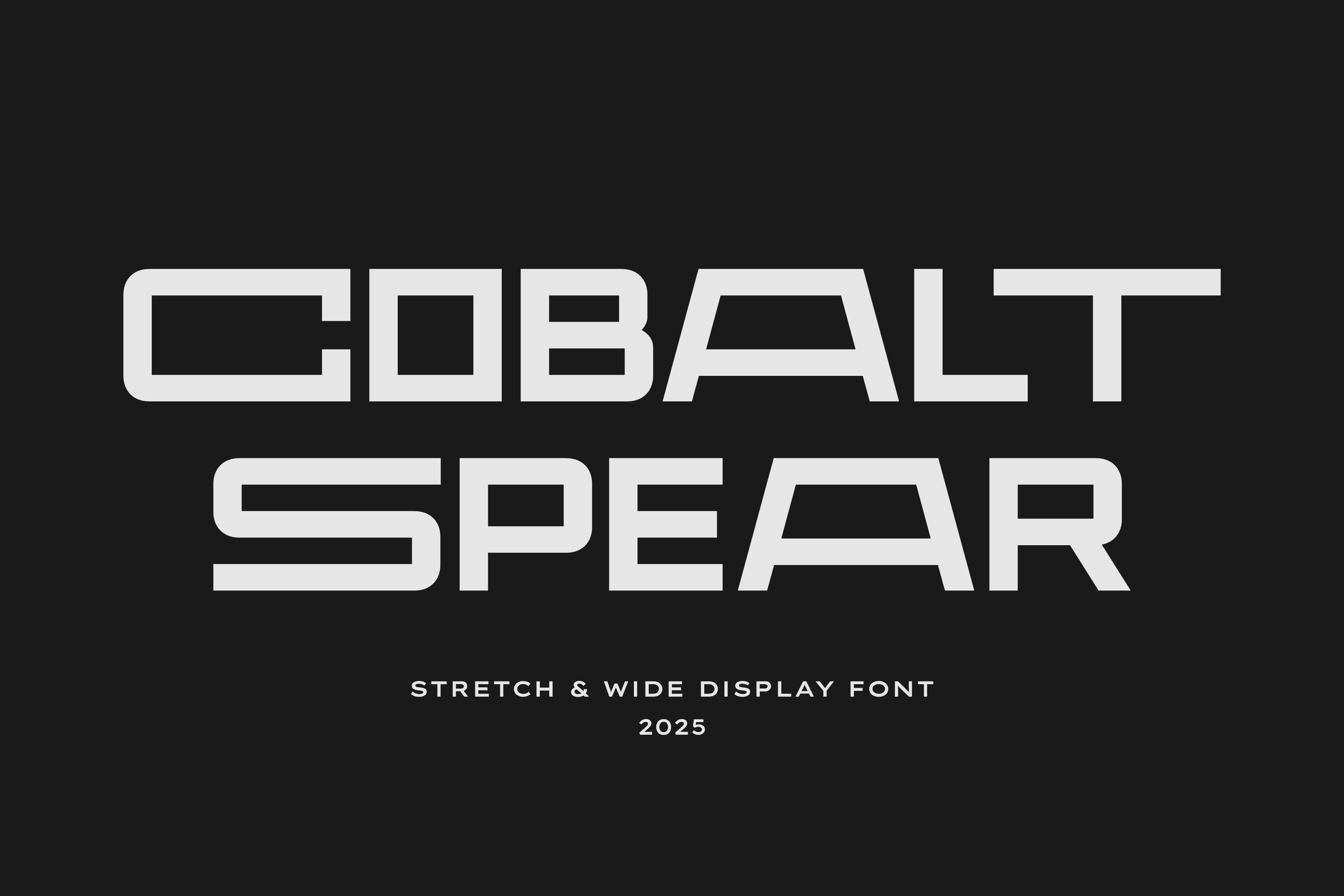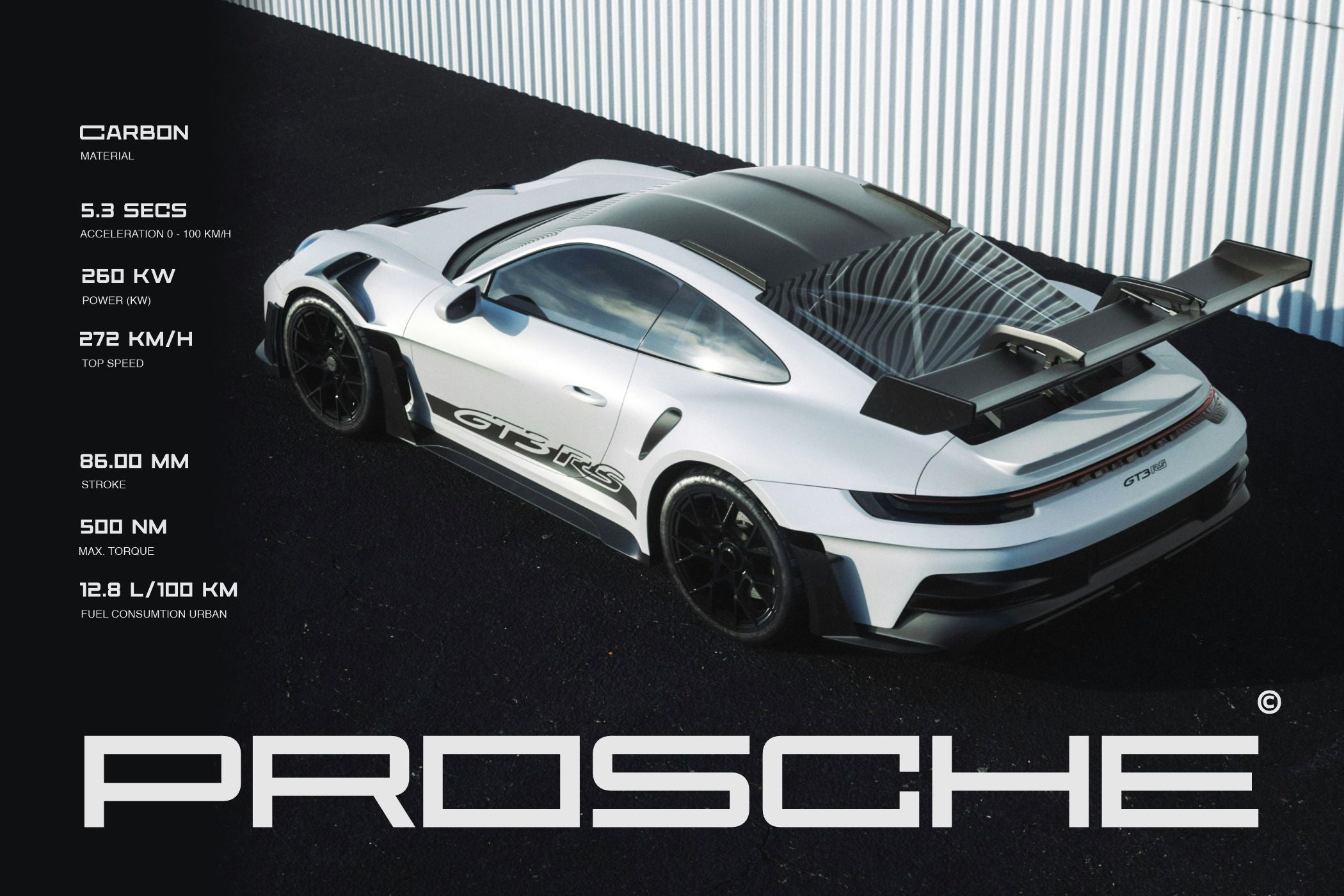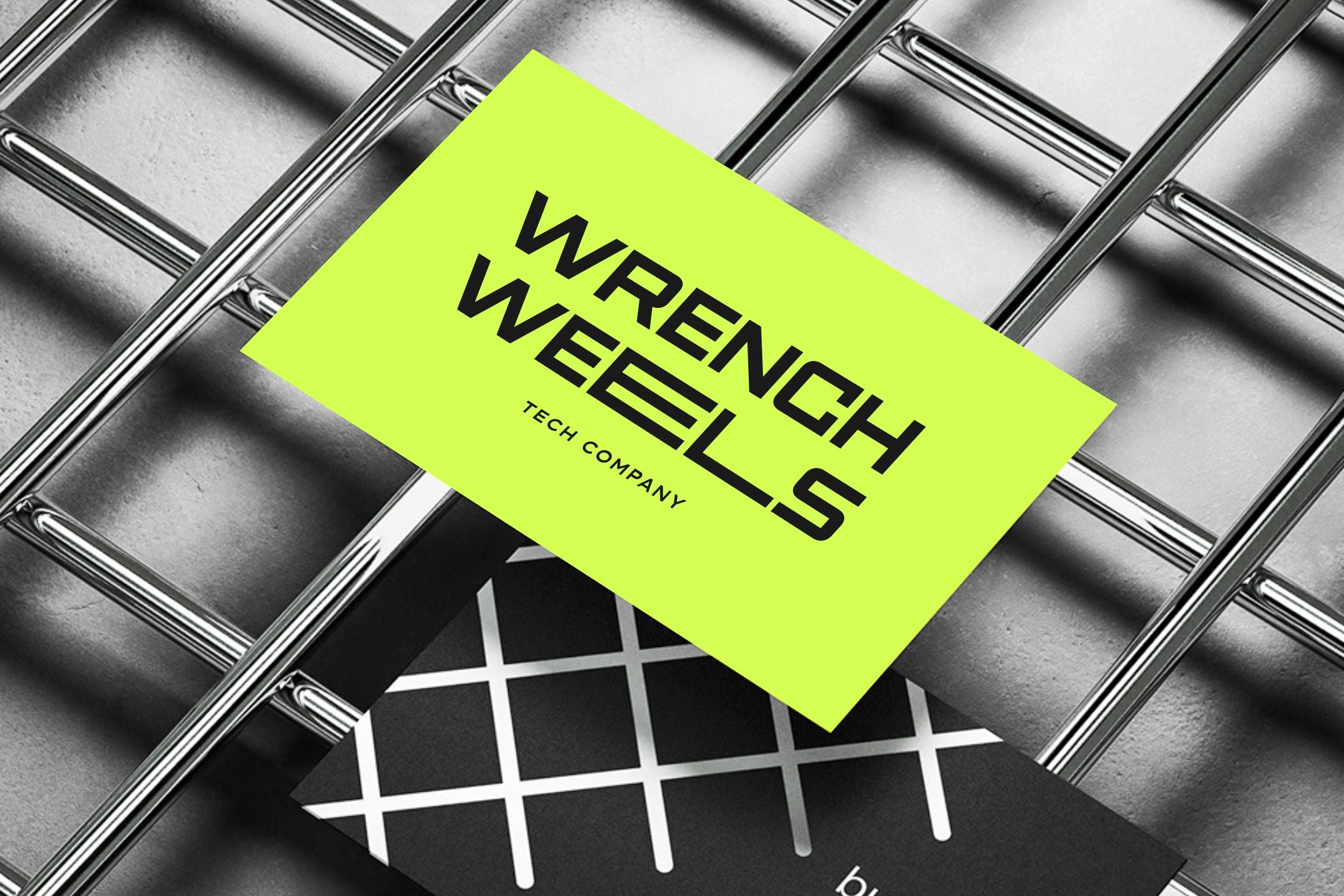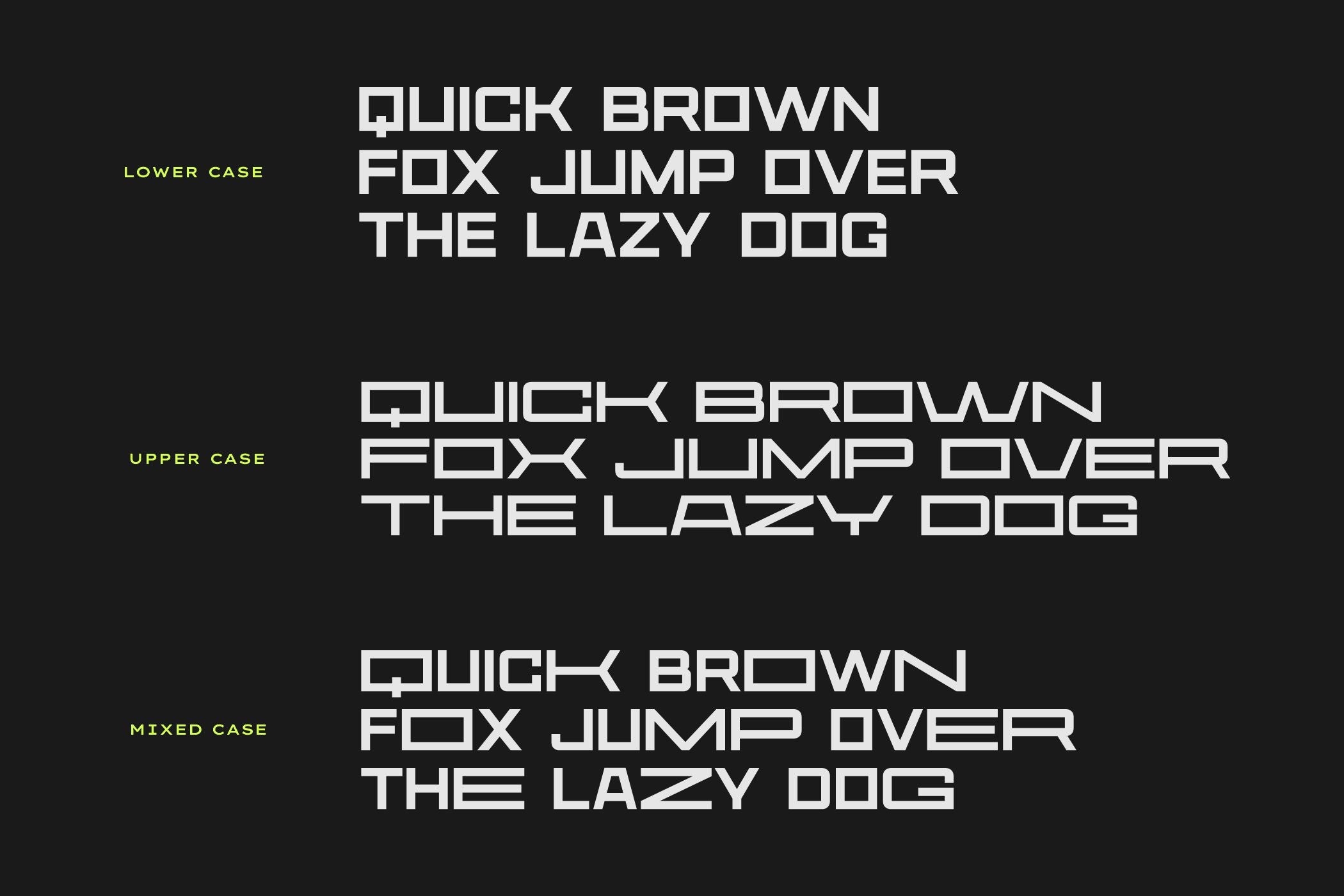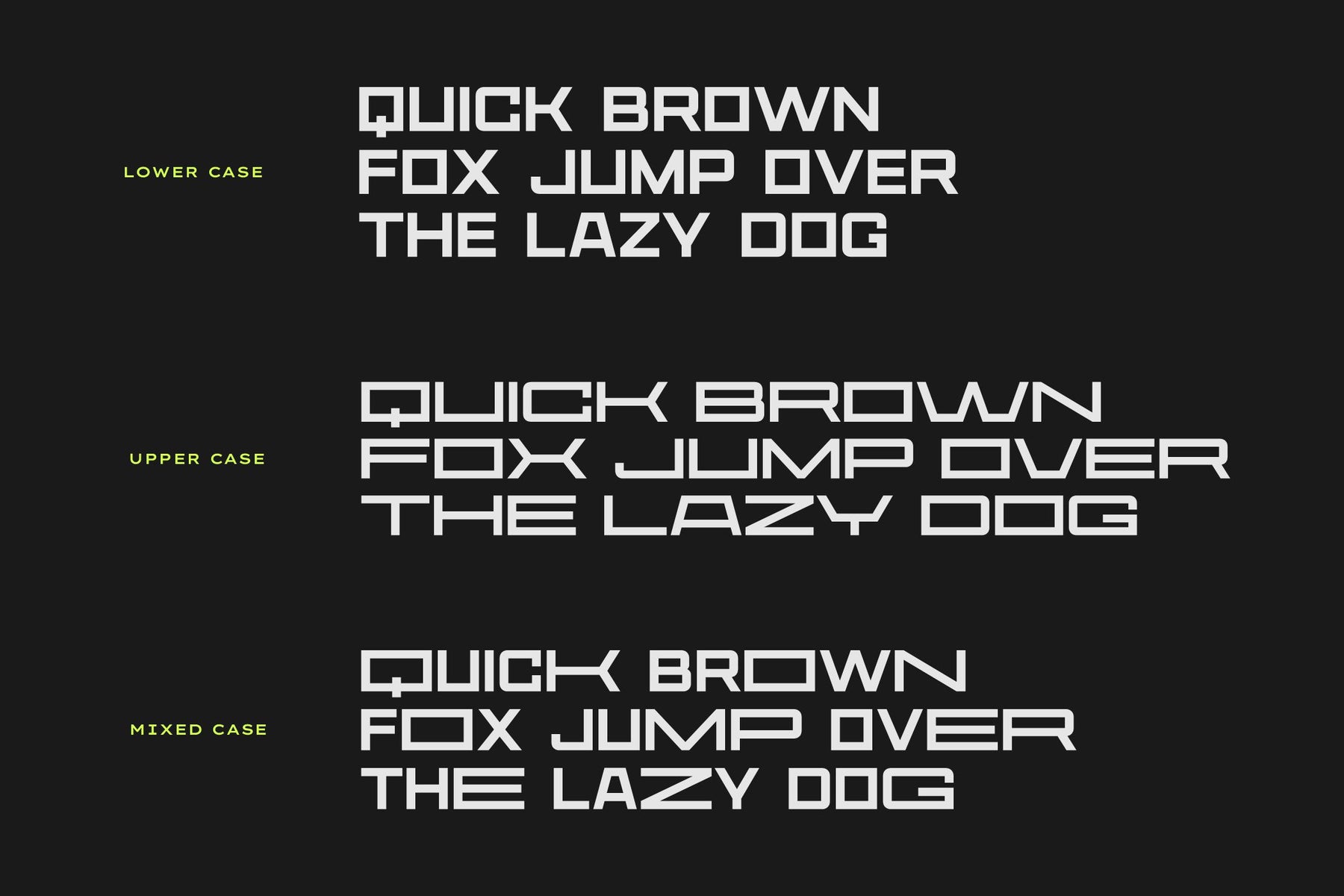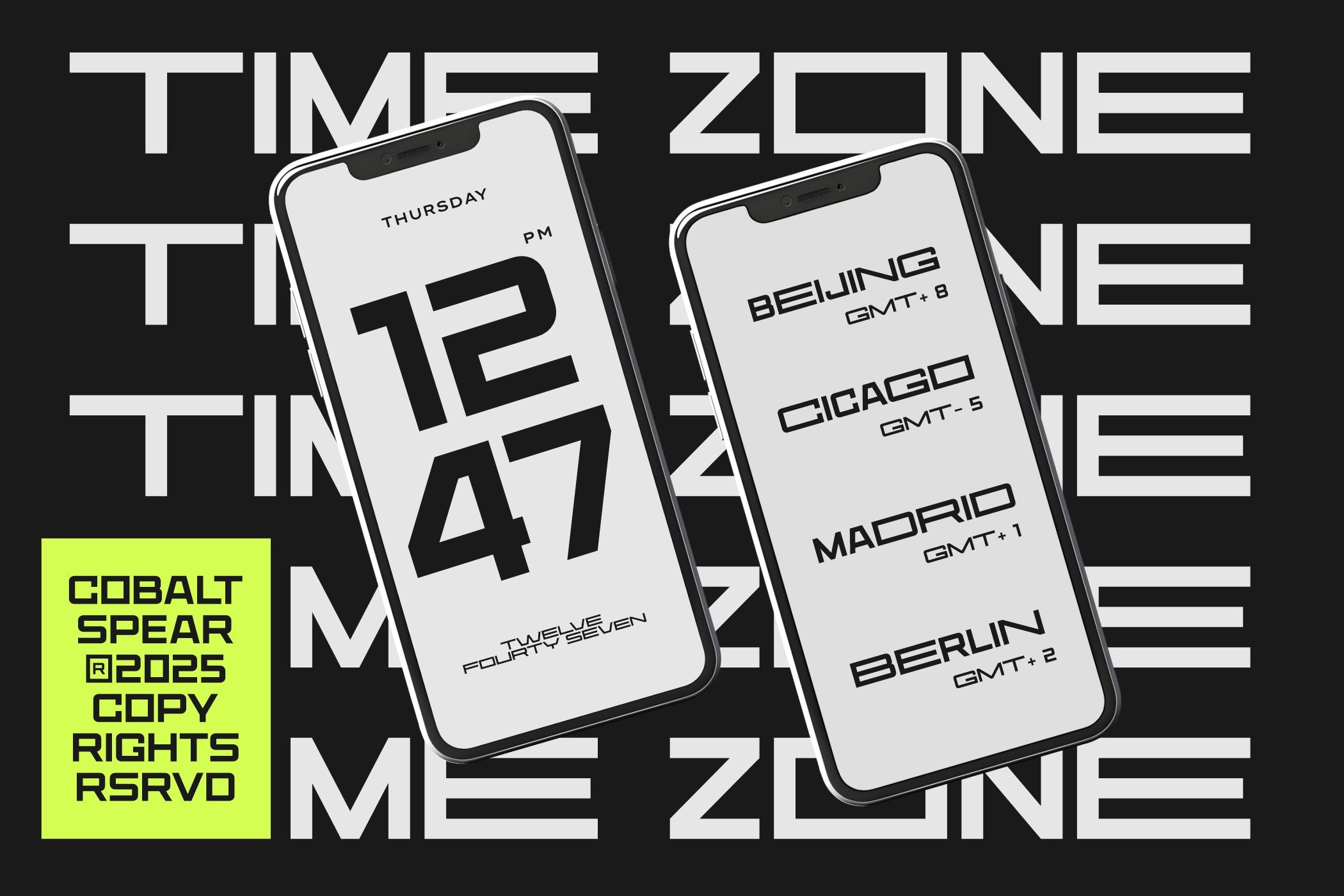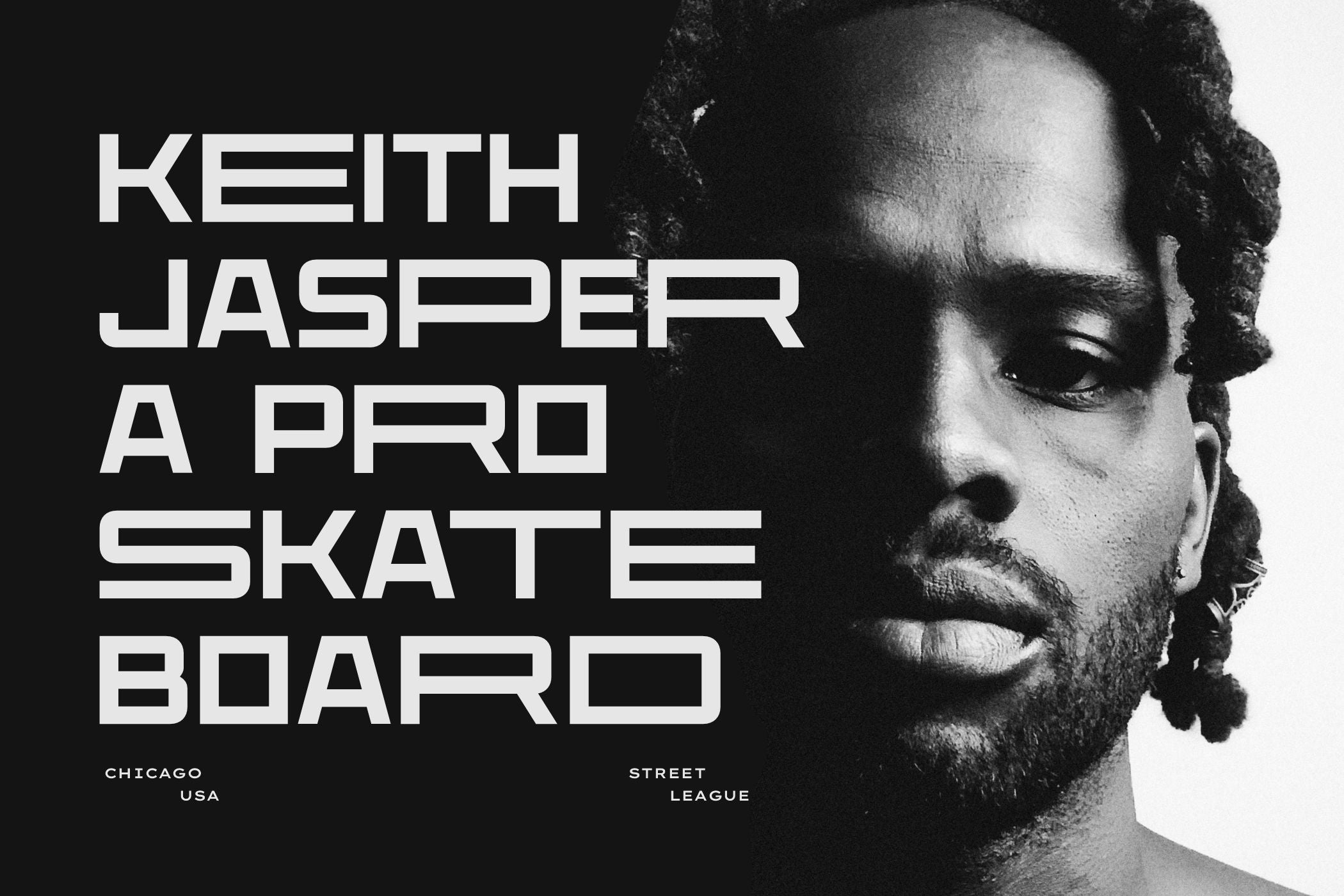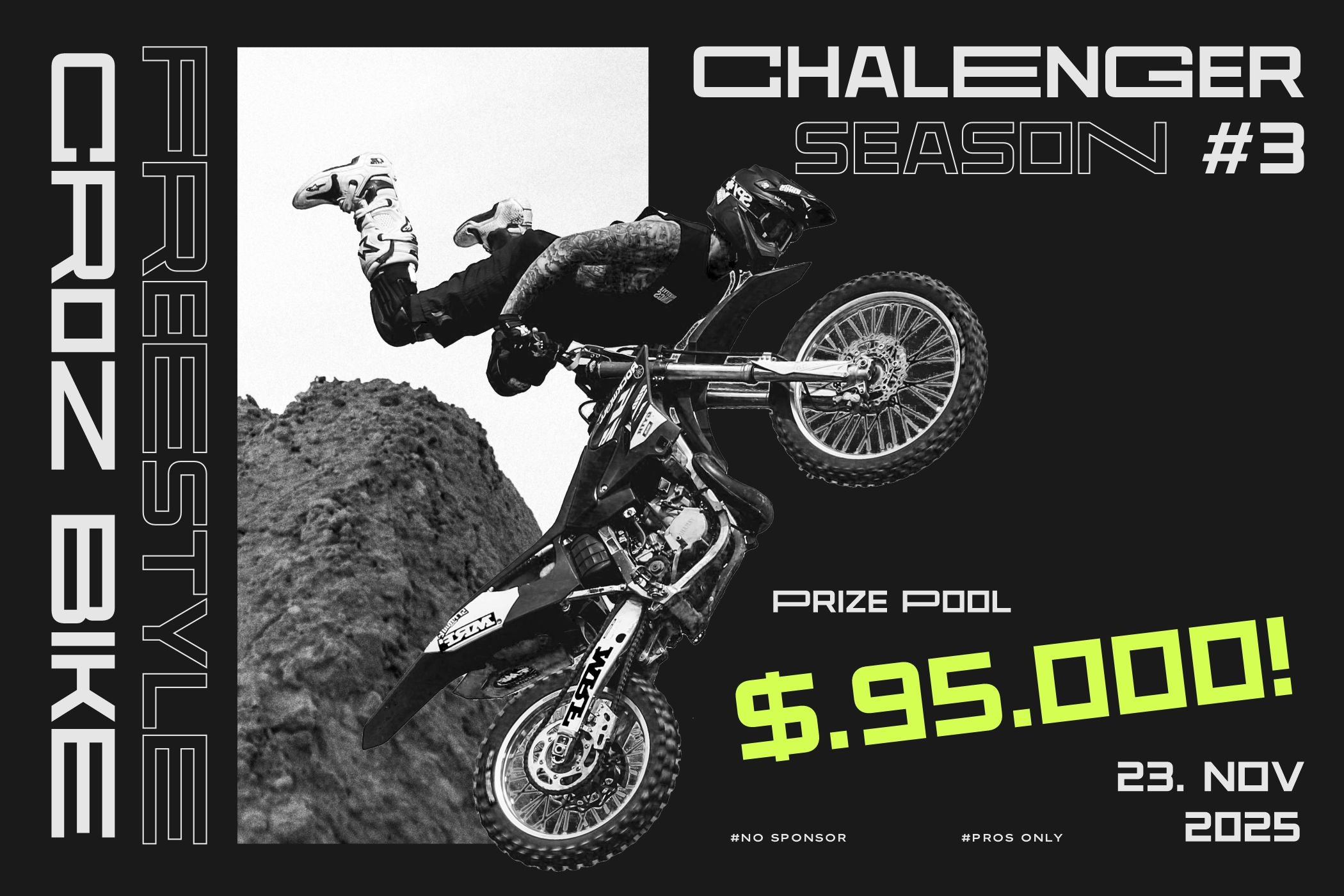
Cobalt Spear by Rar Typeworks - Stretch Wide Display Font
Cobalt Spear – Stretch Wide Display Font is a bold and commanding geometric typeface designed for maximum visual impact.
Featuring wide capital letters, this display font is perfect for headlines, logos, posters, and branding where a strong presence is essential.
Its clean lines and extended proportions give it a futuristic, industrial feel while maintaining excellent readability. Cobalt Spear is your go-to choice when you need a font that speaks with power and precision.